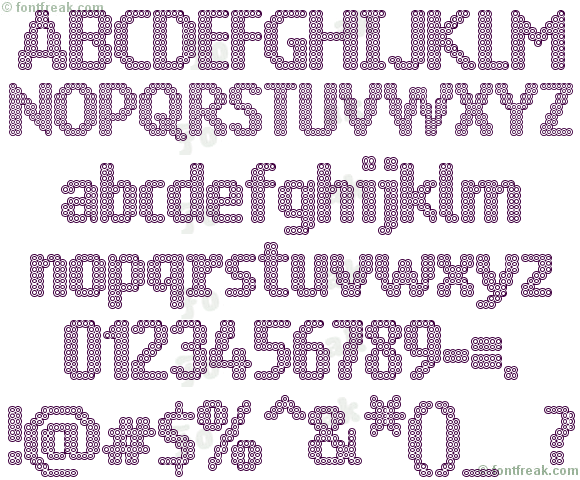
Vrångö
About Vrångö
The Vrångö font, designed by Peter Wiegel, is a distinctive display typeface that combines playful characteristics with a unique aesthetic. This font falls under the decorative category, featuring a whimsical design that captures attention. The letters are crafted with a rounded, bubble-like structure, giving it a friendly and approachable feel. The stroke weight is consistent, with a subtle contrast that enhances legibility while maintaining a lighthearted appearance. The spacing between characters is well-balanced, allowing for easy reading without compromising the font's playful nature.
Vrångö is particularly suited for a variety of creative applications. Its charming design makes it an excellent choice for wedding invitations, where it can add a personal touch to the event's stationery. Additionally, this font works beautifully for children's book covers, where its fun and inviting style can attract young readers. Restaurant menus can also benefit from Vrångö's unique flair, helping to create a memorable dining experience. Moreover, graphic designers can utilize this font in branding projects, as it effectively communicates a sense of creativity and warmth.
The target audience for Vrångö includes graphic designers, small business owners, and content creators looking to infuse their projects with a playful spirit. Whether used in digital or print media, this font can elevate any design, making it stand out in a crowded visual landscape.